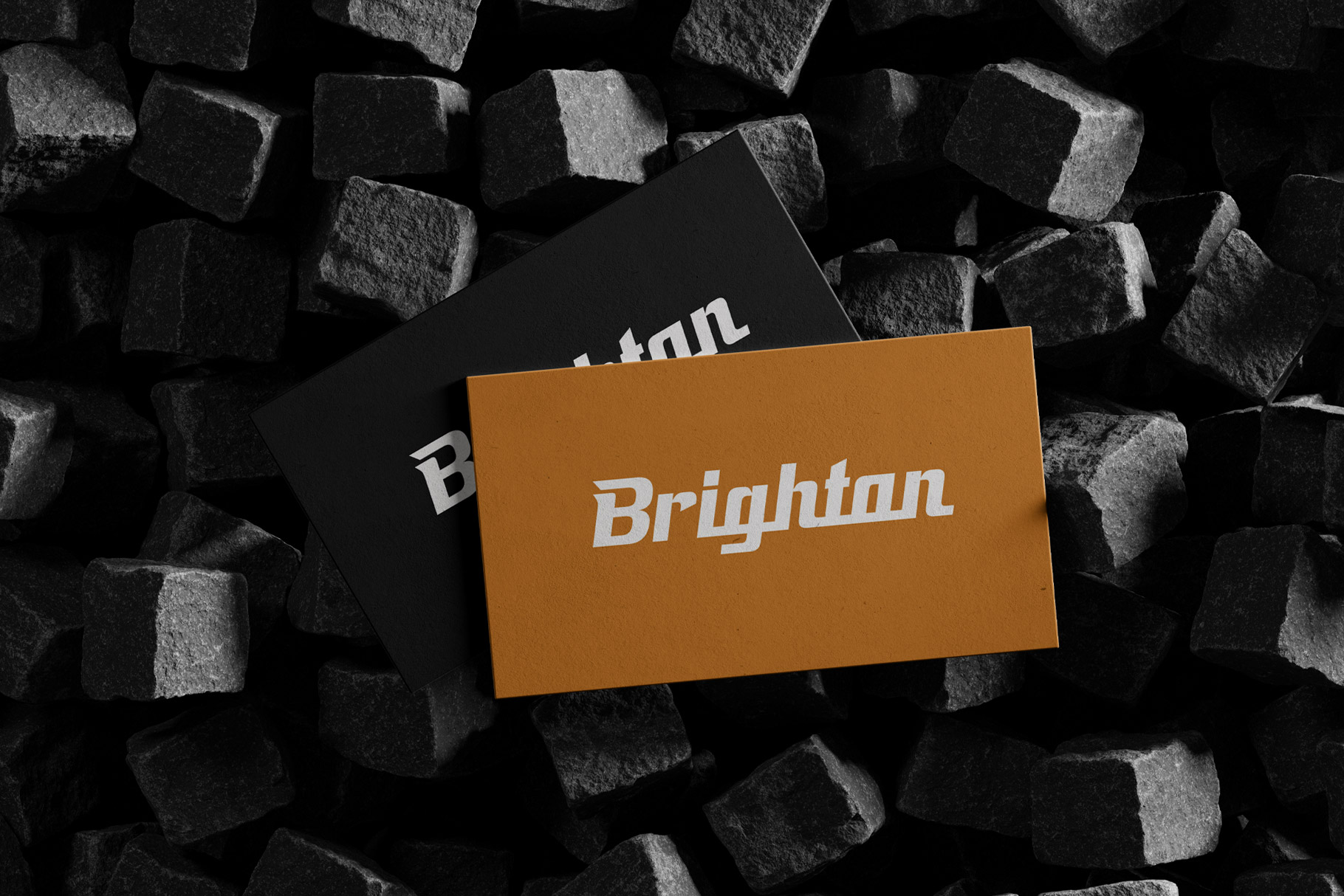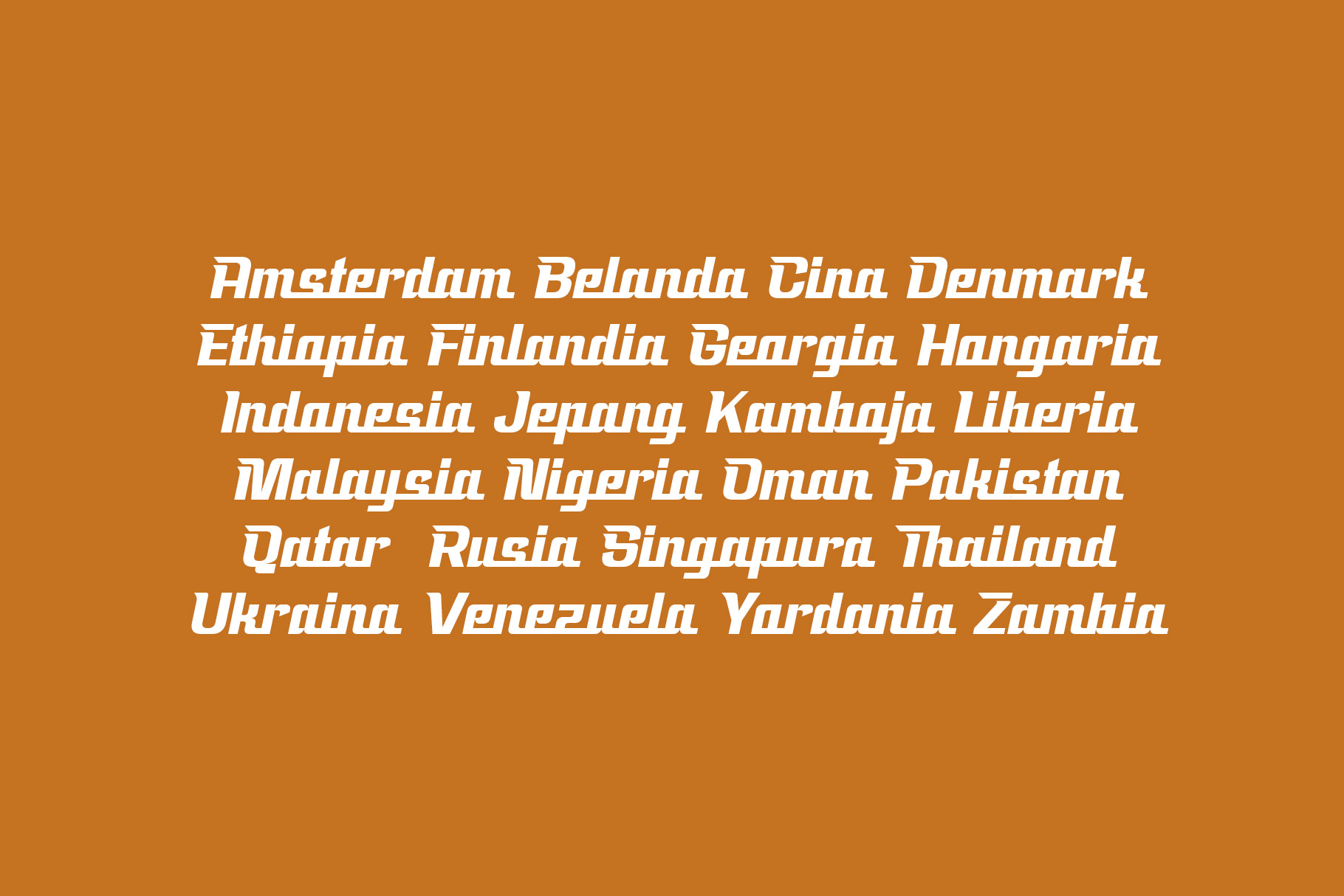
Penald Regular
Penald Italic
Penald is sport font high impact typefaces engineered to convey energy, speed, strength, and competition. Penald is a perfectly choice for any creative endeavor, creating, modern, sport, gaming, esport, lifestyle design such as logotype, title, cover, branding, display and magazine, social media posts, advertisements, printed quotes, product packaging, corporate brand, product designs, labels, watermarks, special events and any other project with modern touch.